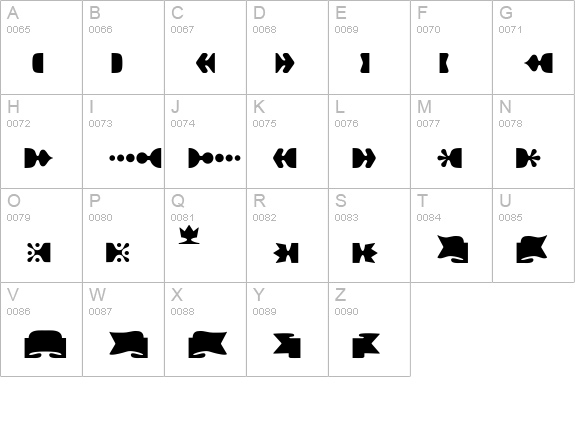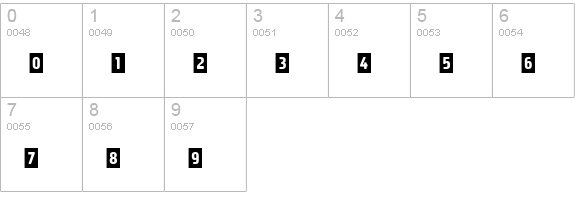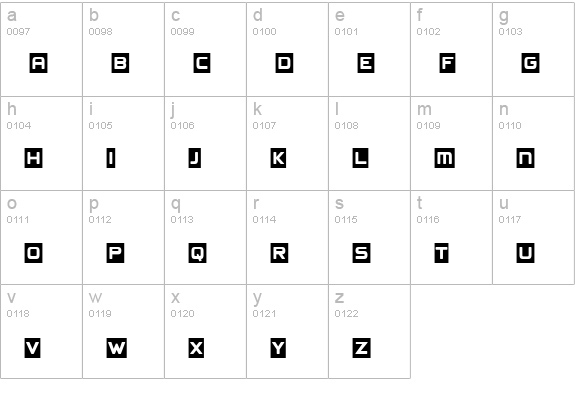
Mayo-DingBorders Font Details
Introducing Mayo-DingBorders font, a unique and versatile typeface that brings a touch of creativity to your design projects. This font features a collection of decorative borders and dingbats that add a playful and whimsical element to your text. With its charming and eye-catching characters, Mayo-DingBorders is perfect for a wide range of applications, from greeting cards to social media graphics. What sets Mayo-DingBorders apart is that it is not only stylish and fun to use, but it is also completely free! You can easily download this delightful font at FontsMarket.com and start incorporating its delightful elements into your designs today. Whether you're looking to add a touch of flair to your invitations or want to create standout headlines, Mayo-DingBorders is the perfect choice for adding that extra special touch to your projects. Download it now and let your creativity flow with this fantastic and freely available font.